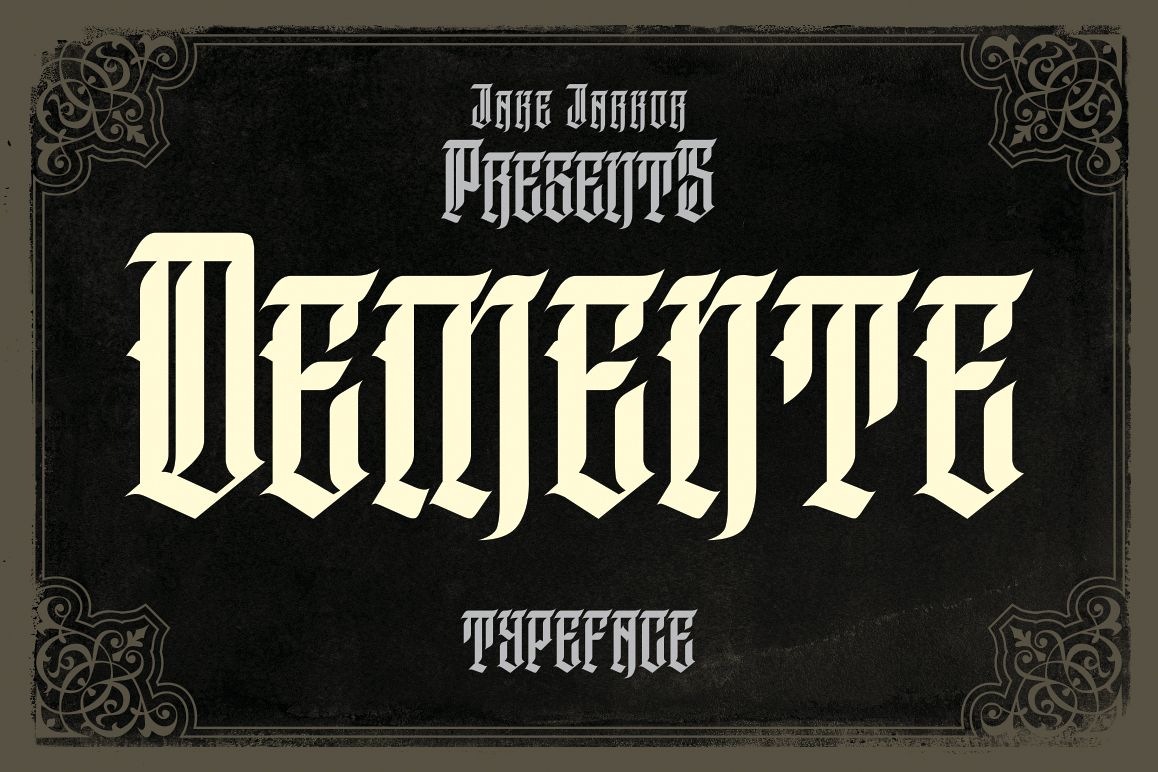
Jake Jarkor Presents:
DEMENTE is a typeface inspired in tattoo letters, chicano culture and calligraffiti. It works well with normal size text, but it works even better for large displays, short words, or even just to incorporate a few or single characters in a design. Suitable for many creative products & tattoo designs, like posters, t-shirt, street wear, logo, signage, headlines, etc.
Jake Jarkor Presenta:
DEMENTE es una tipografÃa inspirada en el tatuaje, la cultura chicana y el calligraffiti. Funciona bien con el texto de tamaño normal, pero funciona incluso mejor para diseños de gran tamaño, palabras cortas, o incluso sólo para incorporar un par de caracteres individuales en el diseño. Es una tipografÃa muy conveniente para productos creativos y diseños para tatuajes, como carteles, playeras, logotipo, señalización, titulares, etc.